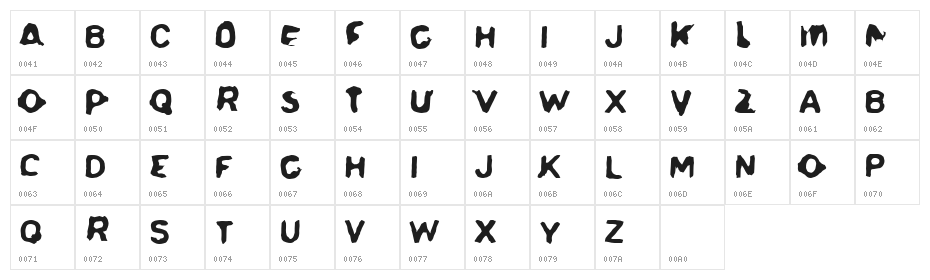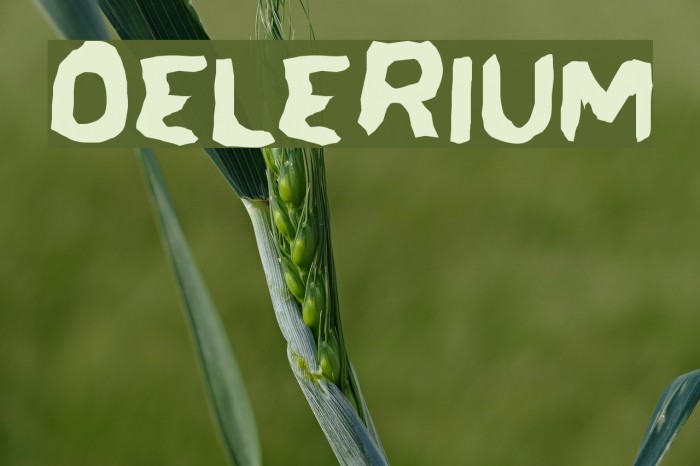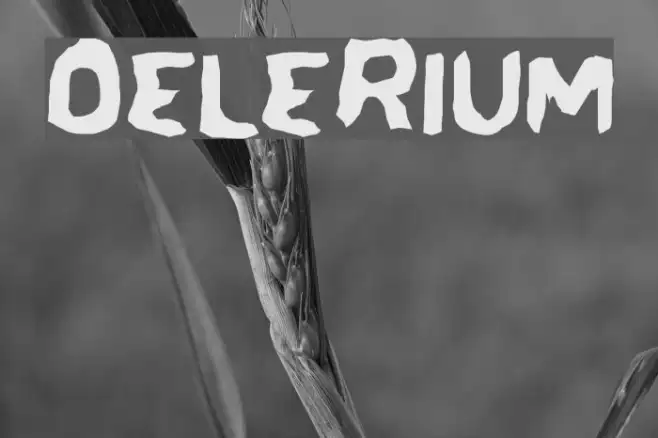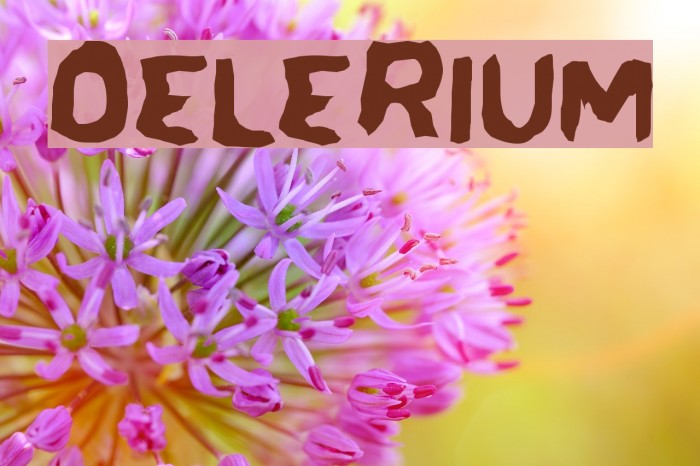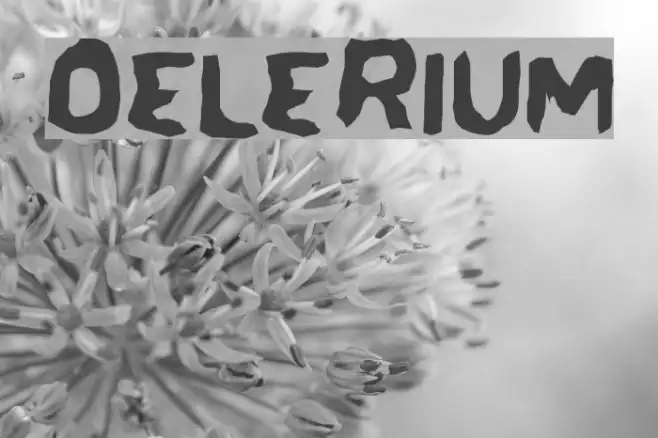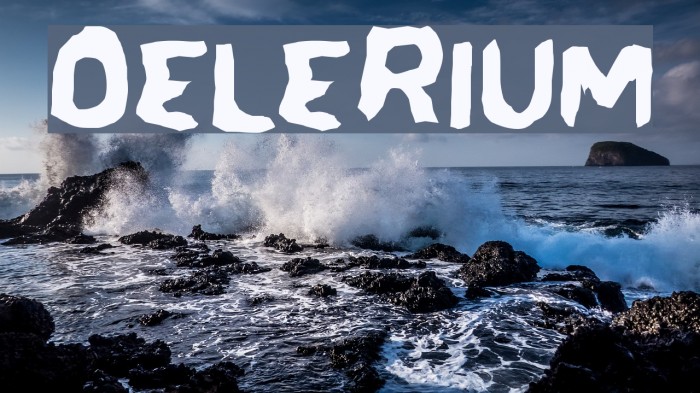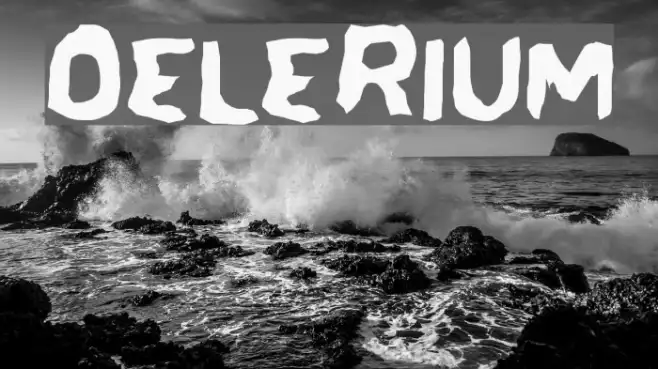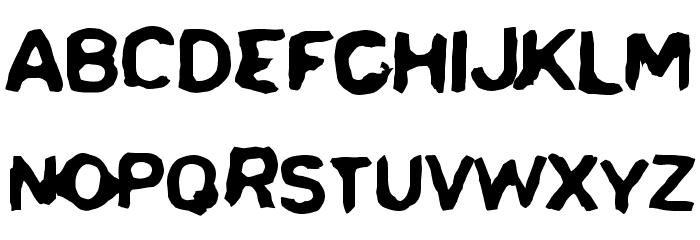
Delerium Font
Delerium Description
This font features a bold, expressive style with a hand-painted appearance. The characters have irregular edges and a dynamic flow, giving them an energetic and artistic feel. The uppercase letters are particularly striking, with thick strokes and uneven contours that suggest movement and spontaneity. The overall design is reminiscent of brush strokes, making it ideal for projects that require a creative and informal touch. The font lacks lowercase letters and numerals, focusing solely on uppercase characters, which enhances its impact and suitability for display purposes.
| Overall Style | Artistic, Expressive, Dynamic |
| Use Case | Headlines, Posters, Branding |
| Proposed Projects | Ideal for artistic posters, creative branding, and eye-catching headlines. |